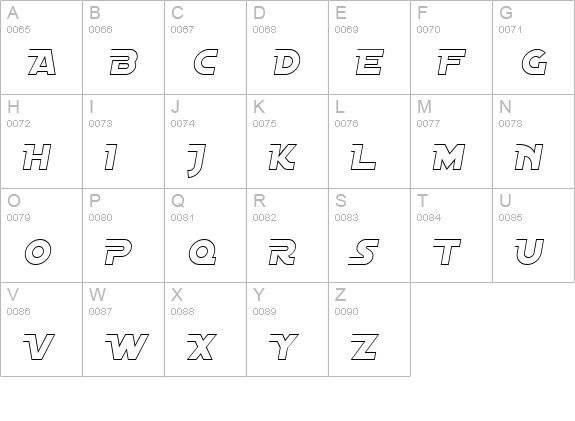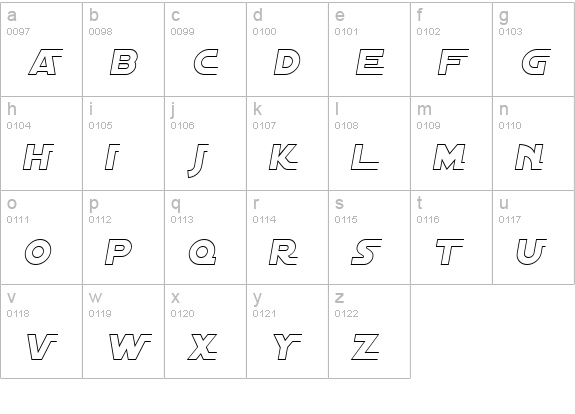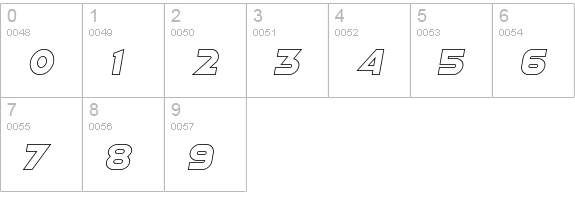
Distant Galaxy AltOutline Italic is a distinctive, italic variant in the Distant typeface family \xE2\x80\x94 well suited to design and typography projects.
Distant Galaxy AltOutline Italic font is a stunning and futuristic typeface that will transport your designs to another dimension. Its sleek and edgy design gives off a sense of space and timelessness, perfect for projects that aim to stand out from the crowd. The italic style adds a touch of elegance and sophistication to any text, making it ideal for branding, headlines, and creative projects. Best of all, Distant Galaxy AltOutline Italic font is completely free to download at FontsMarket.com. Yes, you read that right - this eye-catching font is available for you to use in your designs at no cost. So why wait? Elevate your projects with the unique and captivating Distant Galaxy AltOutline Italic font today!